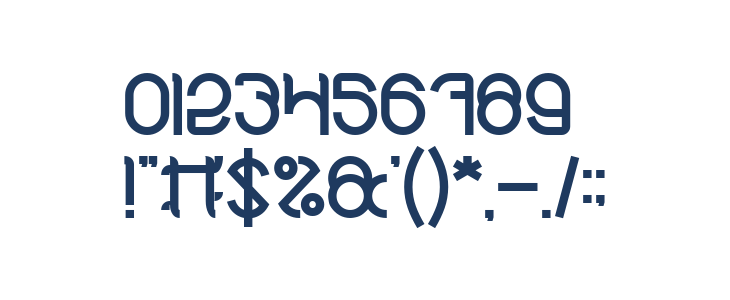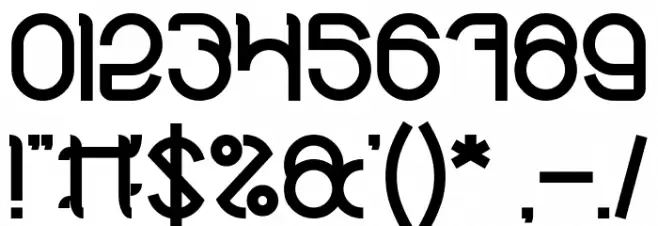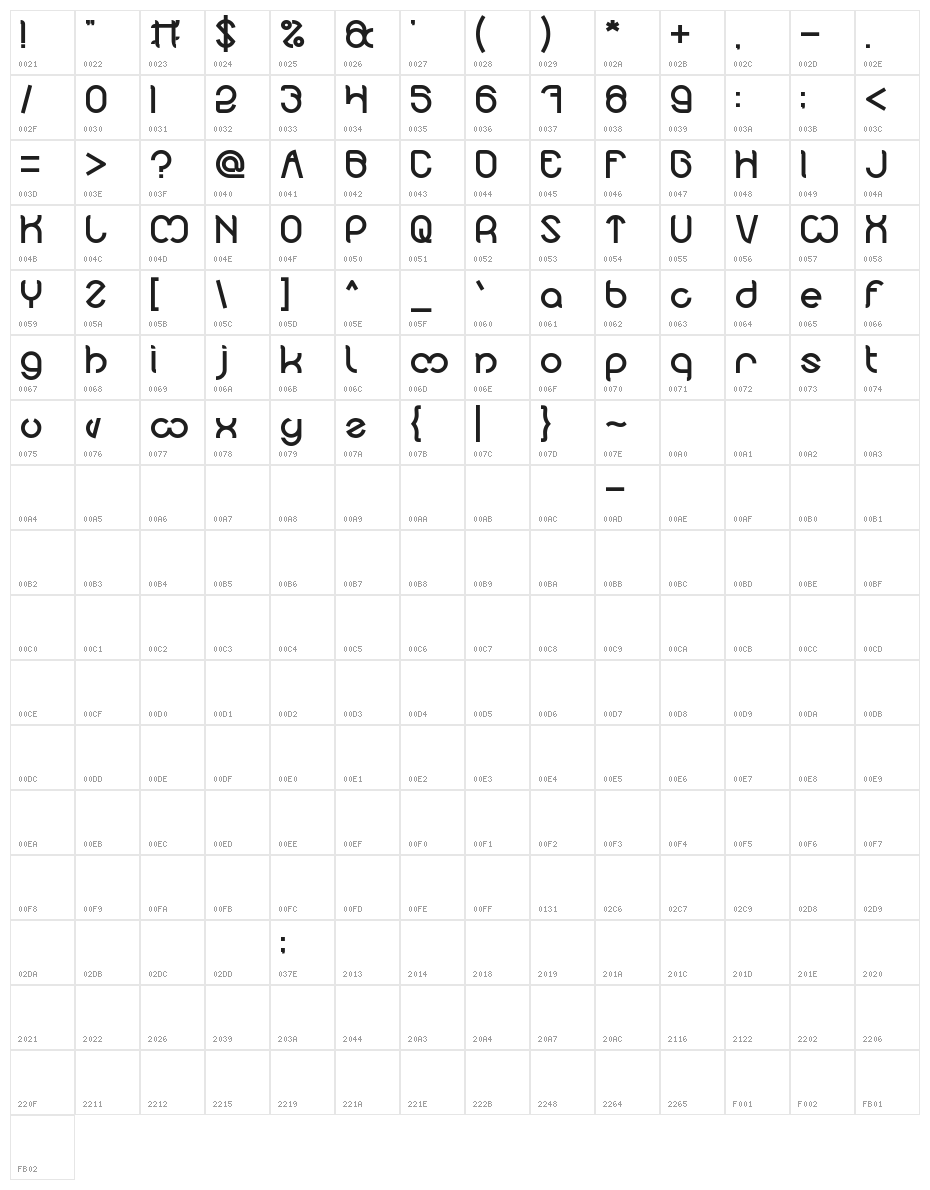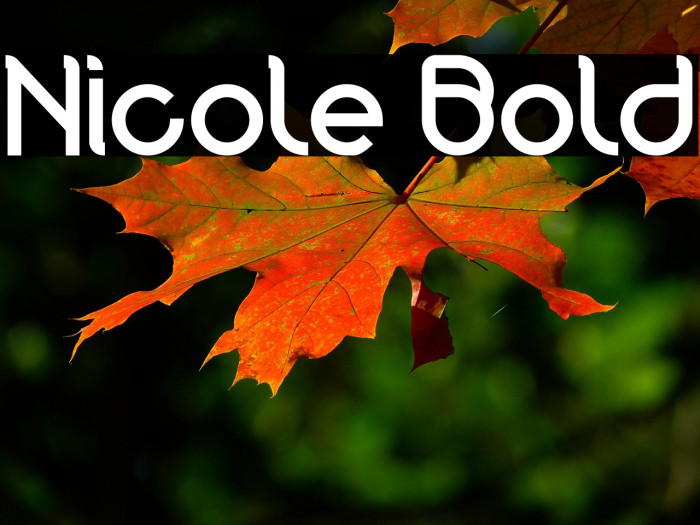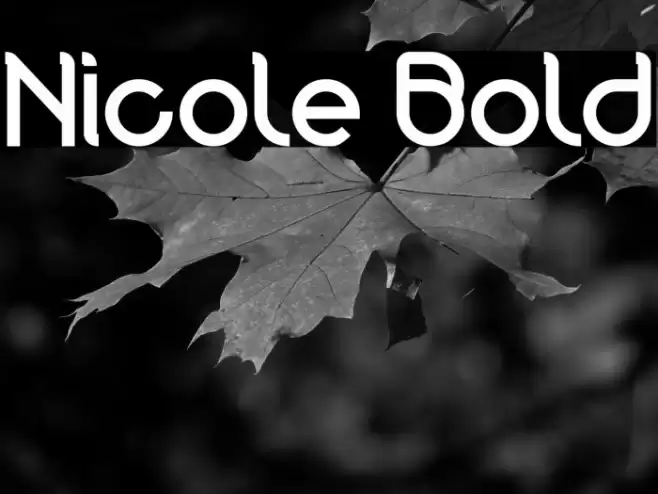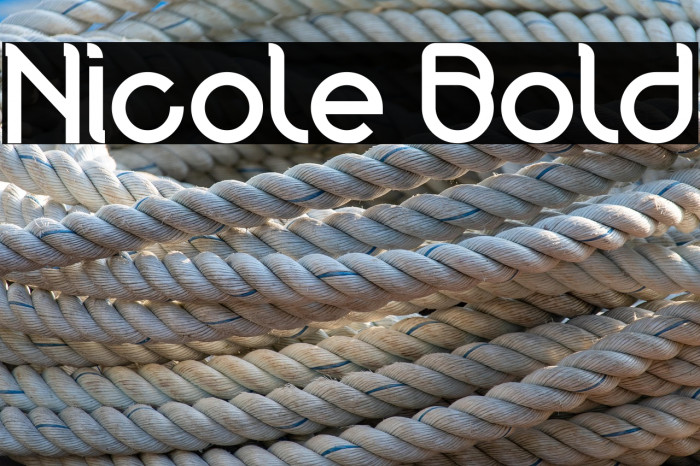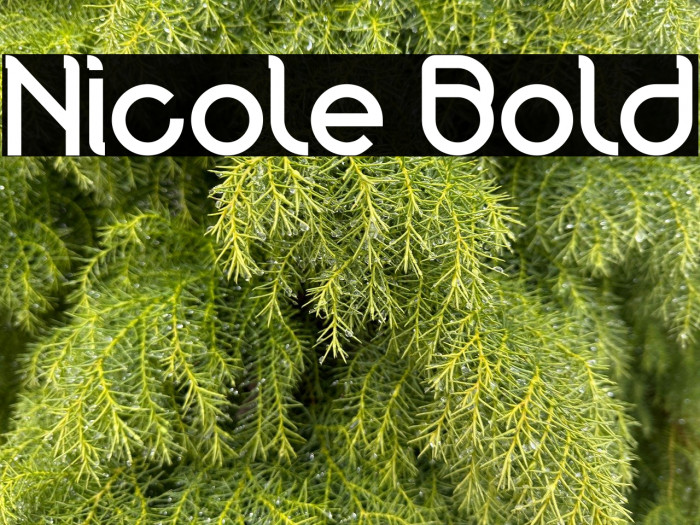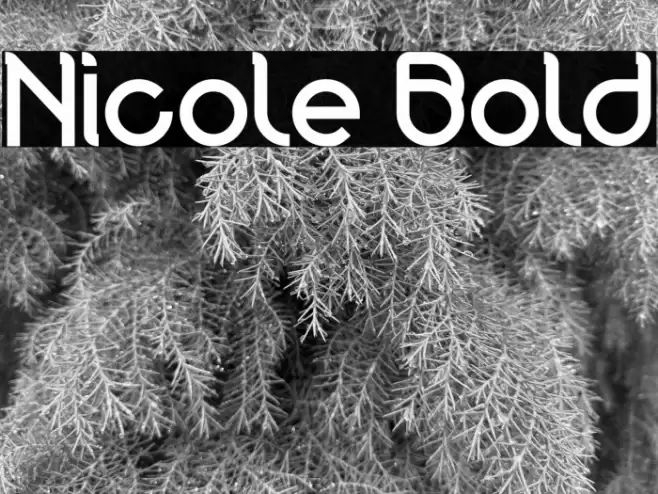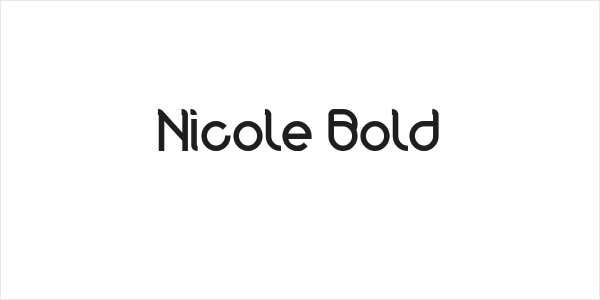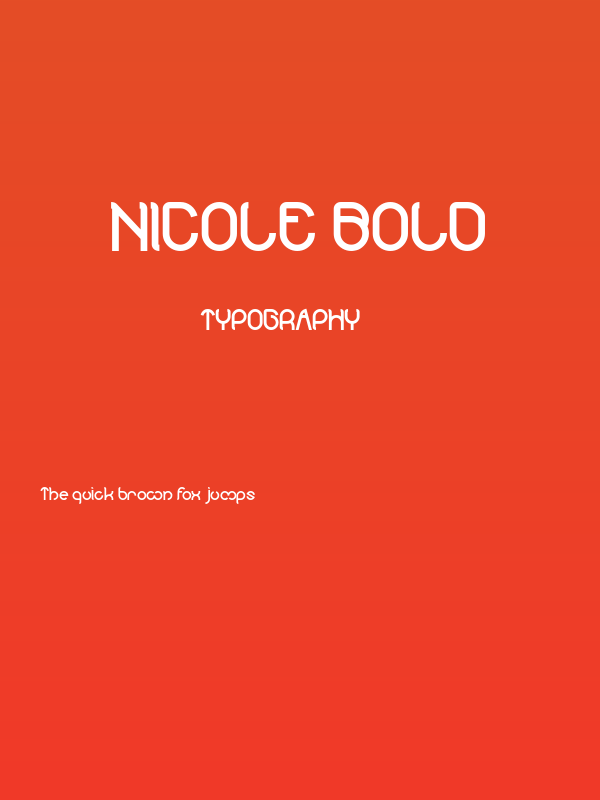
Nicole Bold Font
Nicole Bold Description
This font features a bold and modern design with a unique geometric flair. The characters are crafted with rounded edges and a consistent stroke width, giving it a clean and contemporary look. The uppercase letters are distinct with their symmetrical and balanced forms, while the lowercase letters maintain a playful yet structured appearance. Numbers and special characters follow the same design principles, ensuring uniformity across the font. The overall style is eye-catching and suitable for making a statement in any design project.